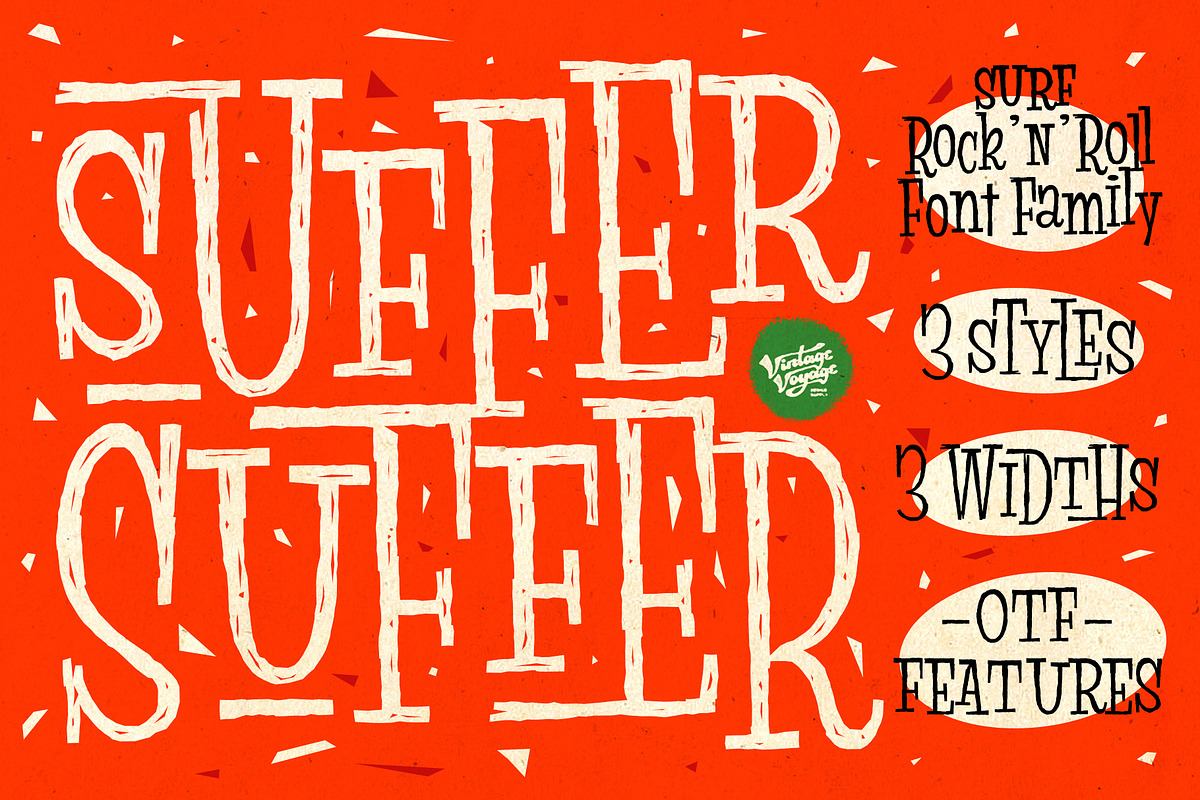
VVDS Suffer • A Rock'n'Roll Family Font Free Download is a gritty, high-energy typeface inspired by the rebellious spirit of rock 'n' roll. Please note: you must purchase this font for commercial use, but you can test it through a free download. With its rough edges, bold attitude, and multiple styles, this font family is perfect for music posters, album covers, streetwear branding, tattoos, and edgy social media graphics.
Whether you’re designing for a garage band or building a bold fashion label, VVDS Suffer • A Rock'n'Roll Family Font Free Download delivers raw power and rebellious charm. Its handcrafted feel and aggressive style bring a punch of personality to any layout. Compatible with Adobe Illustrator, Photoshop, and Canva, this font family makes it easy to go loud with your designs. Download it now for personal use and turn up the volume on your creative work with true rock 'n' roll flair.